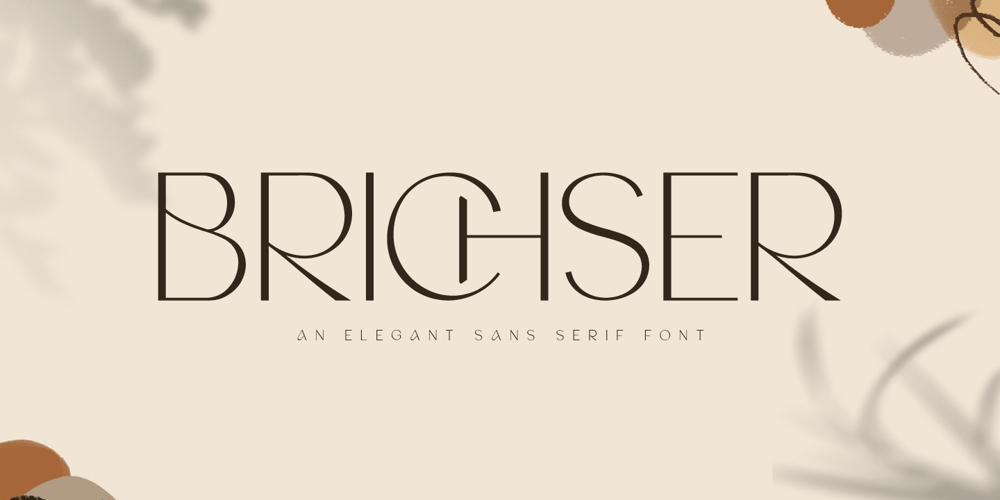
Brichser Font Family was designed by Hayinah and published by Rockboys Studio. Brichser contains 1 styles and family package options. Brichser is an elegant sans serif typeface that combines modern aesthetics with a touch of classic sophistication. Its clean lines and balanced proportions make it versatile for a wide range of design applications. Brichser stands out with its refined curves and minimalist approach, ensuring readability and a contemporary feel. Ideal for branding, editorial design, web design, and any project where a polished, timeless look is desired, Brichser is a perfect choice for creating a sleek and professional visual identity.